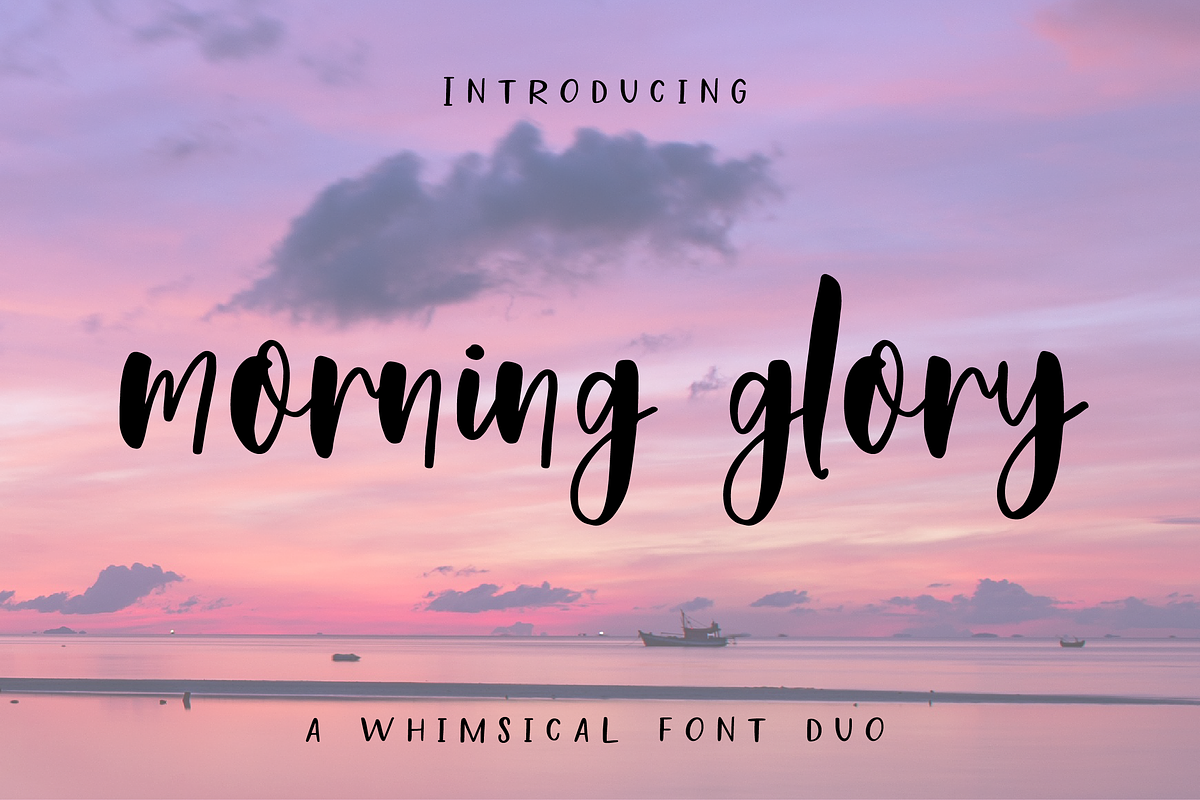
The Morning Glory Font Duo Free Download is a charming and elegant combination of two distinct fonts, perfect for creating versatile and eye-catching designs. Featuring a beautiful script font paired with a clean sans-serif, this duo is ideal for logos, invitations, branding, and other creative projects. Please note, for commercial use, a license must be purchased. You can download it for free for testing purposes.
With its graceful script and modern sans-serif, the Morning Glory Font Duo Free Download offers the perfect balance between elegance and readability. Whether you're designing for weddings, branding, or social media graphics, this font duo will add sophistication and style to your work.